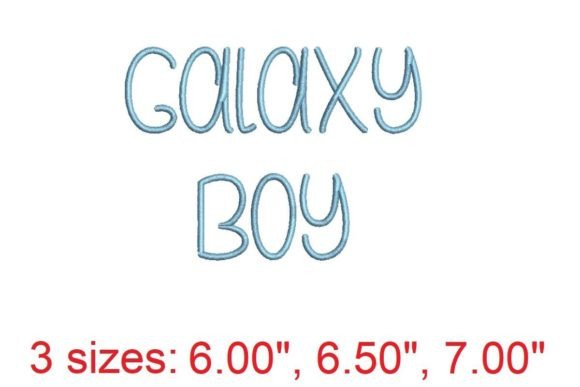
Galaxy Boy Embroidery Font Review
As an embroidery designer and product reviewer, I've evaluated countless machine embroidery designs over the years. Galaxy Boy stands out as a unique and visually engaging font that brings a cosmic flair to any project. But like any design, it has its strengths and limitations. Here's my honest take on how Galaxy Boy performs in real-world use.
The First Impression: Cosmic Charm Meets Stitching Artistry
Galaxy Boy immediately evokes a sense of wonder and whimsy. The font’s shape is bold and stylized, with swirling lines and star-like accents that suggest a galaxy in motion. Its layout feels dynamic, making it ideal for projects that aim to capture attention or add a playful touch. The visual personality leans toward fantasy and space-themed designs, which makes it a natural fit for Back To School items, holiday gifts, or creative personalization projects.
The level of detail is high enough to be eye-catching but not so intricate that it becomes overwhelming. It works well as a standalone text design, especially when used in larger sizes. For smaller applications, however, some elements may become less distinct.
Real-World Use Cases: Where Galaxy Boy Shines
Galaxy Boy excels in custom apparel, particularly sweatshirts, tote bags, and baby clothes. Its bold style makes it easy to read from a distance, which is important for wearable items. When used on a tote bag design, it adds a fun and memorable element that can elevate a simple item into a standout piece.
It also works well for embroidered patches, aprons, and pillow covers. The design’s texture and movement make it visually interesting when stitched onto fabric. For small business owners and Etsy sellers, Galaxy Boy could be a great addition to a collection of themed digital embroidery files, especially for seasonal or special occasion items.
In terms of stitch types, Galaxy Boy likely uses a combination of satin stitch and fill stitch to create its signature look. This means it should hold up well on most fabrics, provided the stitch density is appropriate. However, the design’s complexity may require careful planning to avoid issues like thread breakage or uneven stitching.
Where to Be Cautious: Limitations and Challenges
While Galaxy Boy is visually appealing, it may not be the best choice for every project. On small hoop sizes, the design might feel cramped, especially if you're trying to fit it into tight spaces like caps or hats. The detailed corners and swirling patterns could become distorted if the hoop isn’t large enough to accommodate the full design.
On textured fabrics or thin, stretchy materials, Galaxy Boy may not stitch as cleanly. The design’s intricate details could get lost or appear blurry, especially if the fabric doesn’t hold the stitches well. For dark fabrics, the contrast between the thread colors and the background will be crucial—light-colored threads may not show up as effectively as darker ones.
If you’re planning to use Galaxy Boy on layered garments or curved surfaces, be prepared to do some extra testing. The design’s flow might not translate well to rounded edges, and the stitching could look uneven if not properly adjusted.
Impact on Visual Appeal and Customer Perception
When stitched correctly, Galaxy Boy adds a unique visual appeal that can make a handmade product stand out. It has the potential to increase the perceived value of a finished product, especially when used in a professional or boutique setting. Customers often respond positively to designs that feel creative and original, and Galaxy Boy fits that bill.
For small shop products and Etsy listings, this font can enhance brand consistency and help create a cohesive aesthetic. It’s also a great choice for personalized gifts, as its interstellar theme can resonate with a wide range of buyers. However, it’s important to consider the target audience—while it may appeal to children and young adults, it might not be the best fit for more traditional or minimalist styles.
Practical Designer Notes: What to Test Before Using Galaxy Boy
Before committing to a project with Galaxy Boy, I recommend doing a few key tests. Start by stitching it on scrap fabric to see how the design looks in real life. Pay close attention to the stitch density and whether the design maintains its clarity at different sizes.
Check the thread color contrast against both light and dark backgrounds. If you plan to use it on a variety of fabrics, test it on multiple samples to ensure consistent results. Also, confirm that the hoop size required for the design matches your embroidery machine’s capabilities.